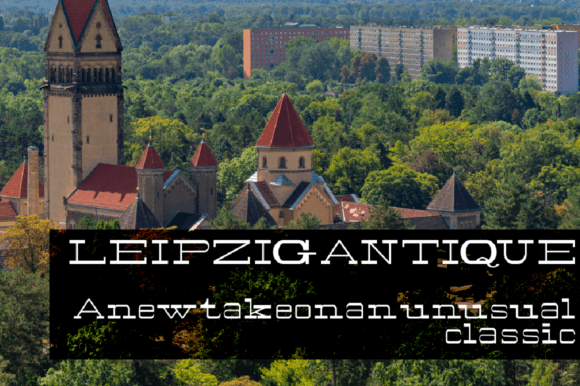
Leipzig Antique Italic Font
Dive into the enchanting world of typography with Leipzig Antique Italic, a captivating slab serif font that evokes timeless elegance and contemporary flair. Reimagined from the iconic Breite Italienne, this font is adorned with an array of captivating details that will ignite your creative spark.
Experience the allure of extended punctuation, modern currency symbols, and an enchanting selection of alternate letterforms. Leipzig Antique Italic effortlessly complements its classic predecessor, ensuring its place as a timeless masterpiece. Embrace the power of this font to transform your designs into captivating visual masterpieces, leaving an unforgettable mark on your audience.